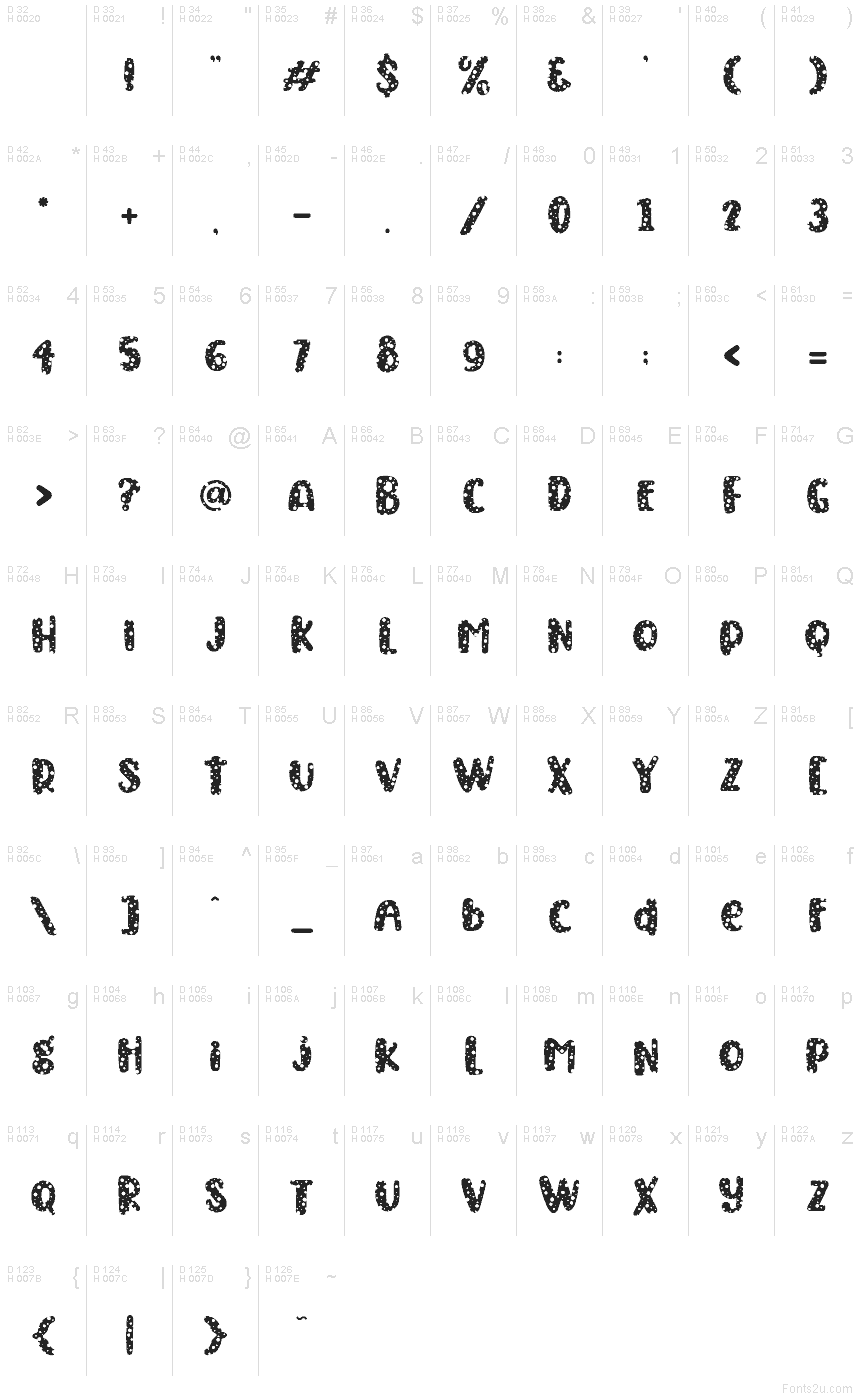
Thanksgiving Joy Dot
Thanksgiving Joy Dot font by PutraCetol Studio is a decorative bold dot display font, inspired by vintage typography design. The simple alphabet is crafted from evenly sized dots and decorated with an interesting playful pattern. If you’re up for something playful and charming in your next project, this free decorative display font sets a good example.
Use this typeface in book covers, packaging projects, posters, T-shirt designs, branding projects, posters or advertisements related to thanksgiving/autumn or any other project that would be completed with the combination of gratitude and giving thanks. Thanksgiving Joy Dot works well alone or even combined with other ordinary fonts you may have.